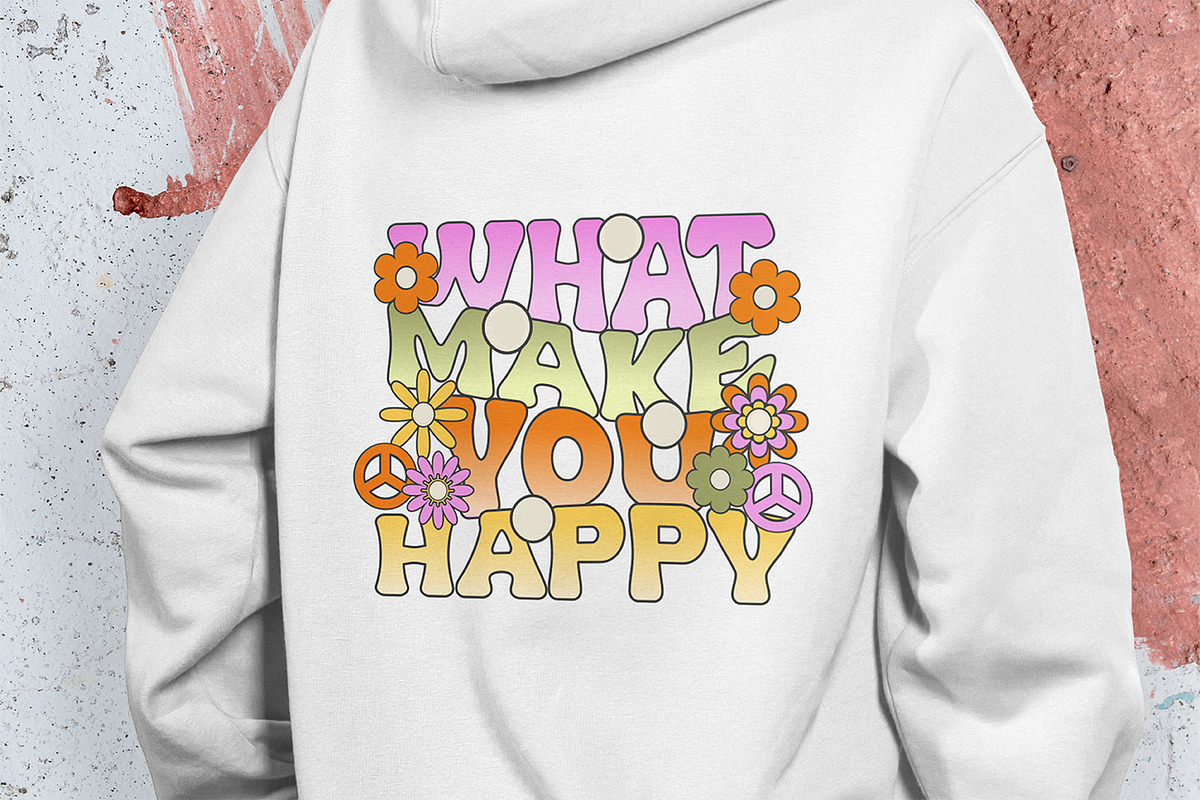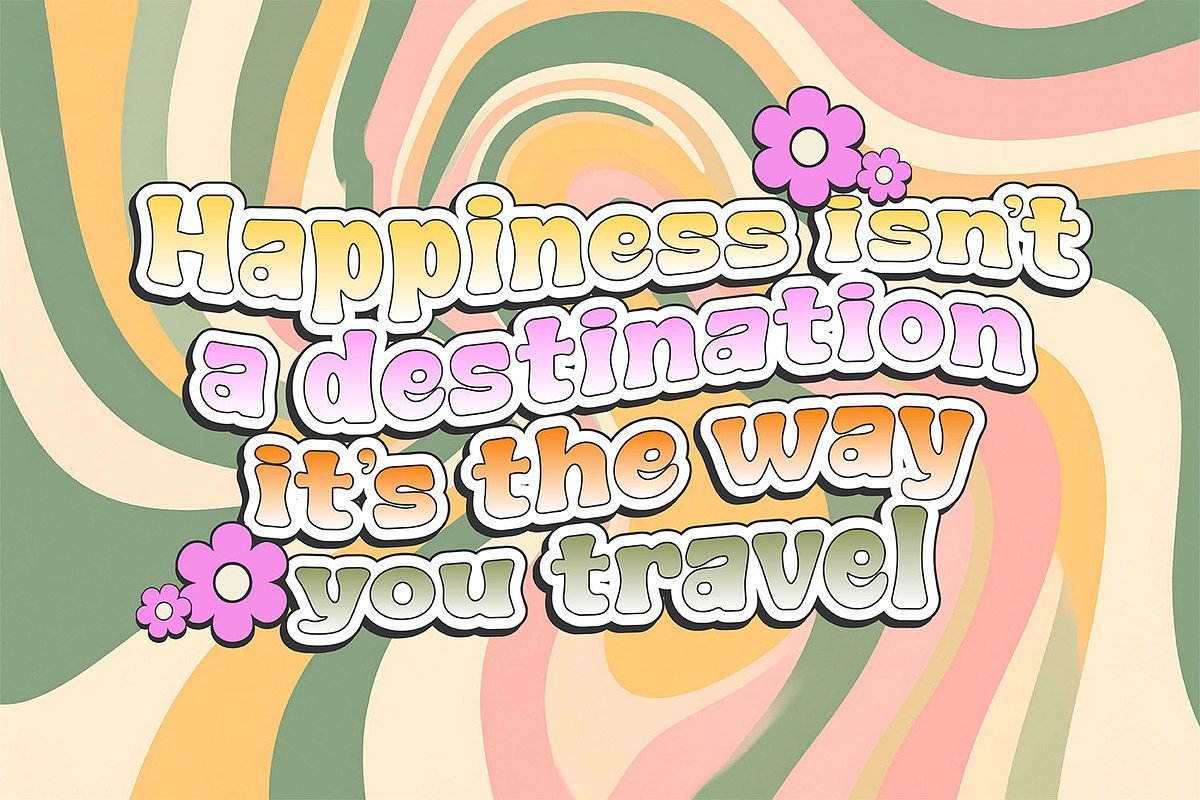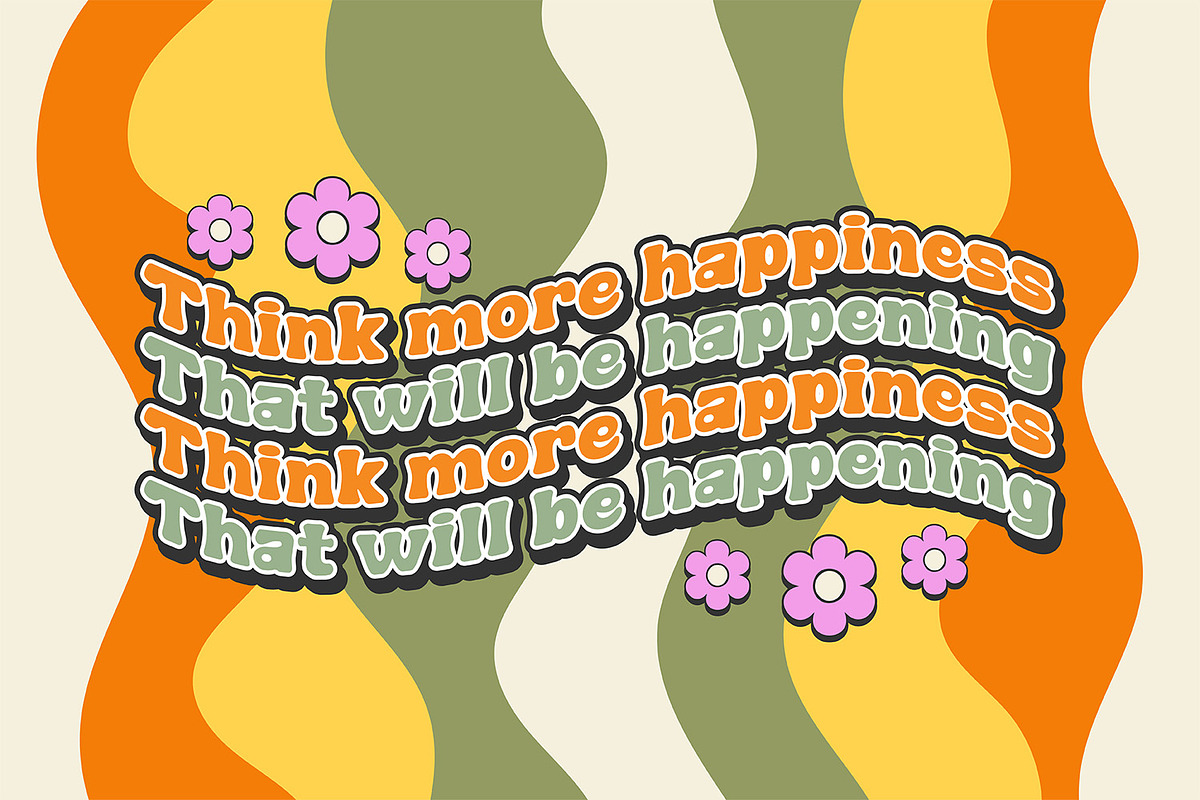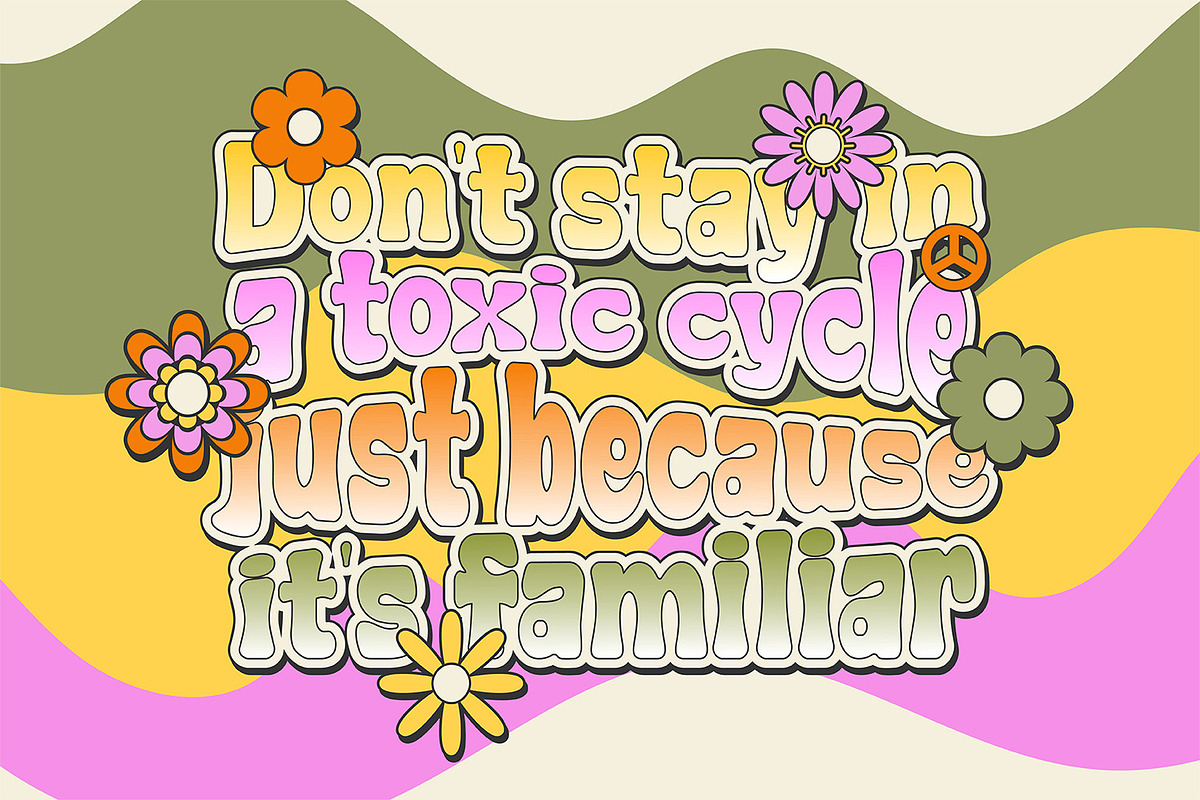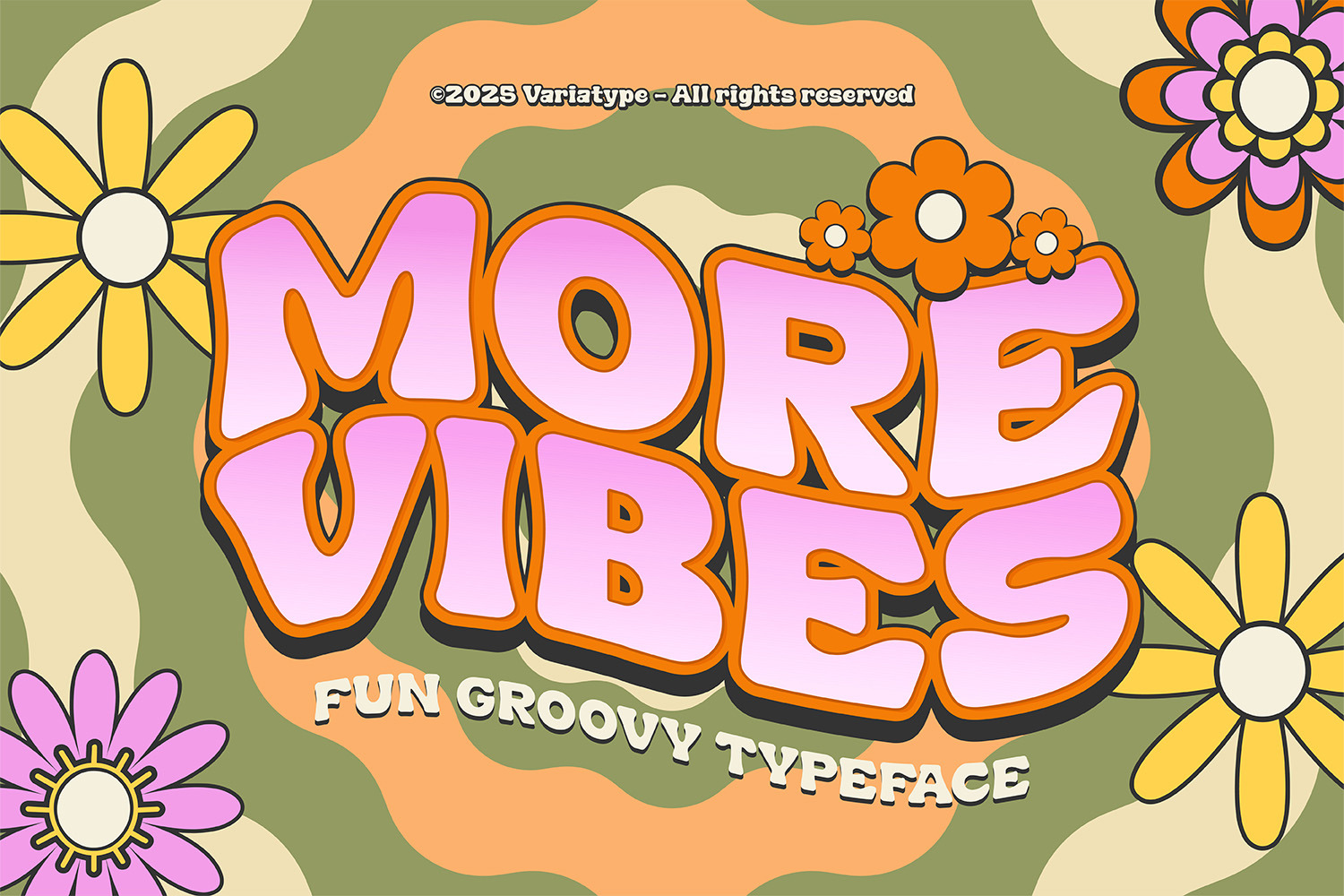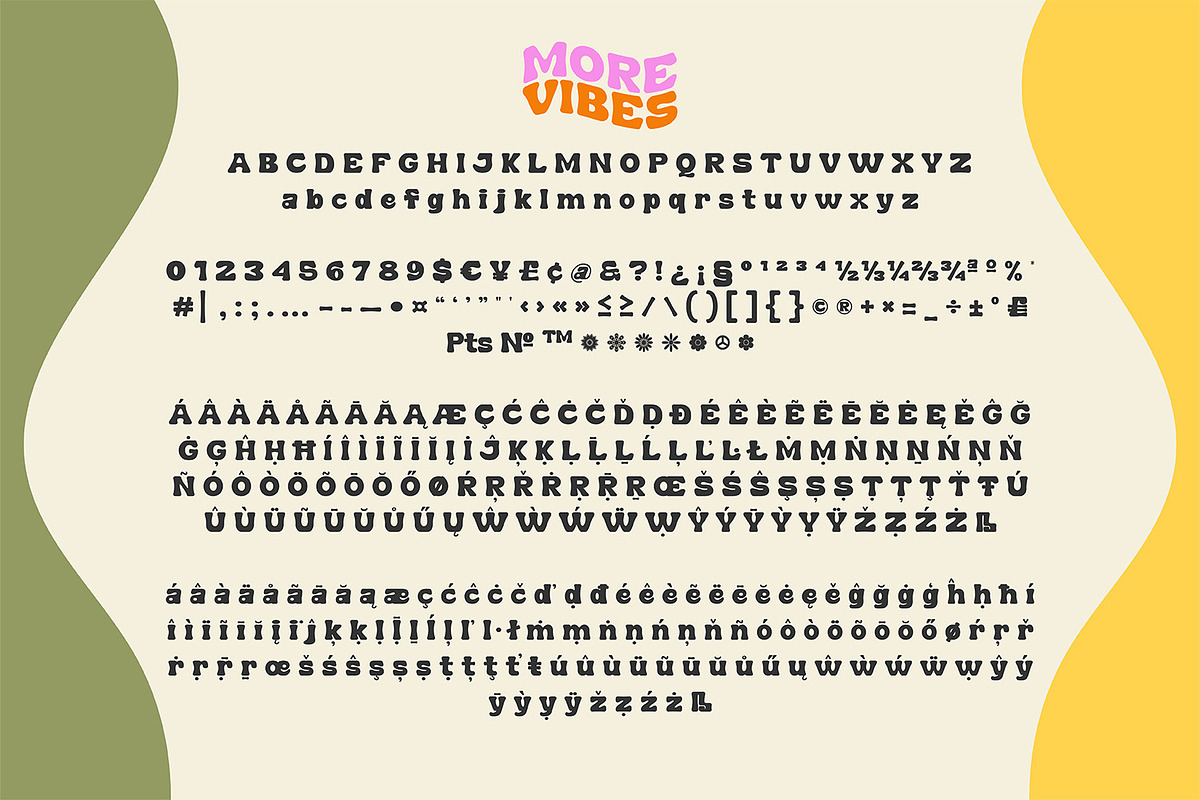
More Vibes – Fun & Groovy Font
More Vibes is a bold, playful, and groovy typeface that brings retro charm and feel-good energy to any design. With its chunky curves, vibrant personality, and nostalgic flair, it’s perfect for posters, branding, social media, or anything that needs a splash of happy 1970s soul. Let your creativity ride the wave of More Vibes!
Additional Accents
95 Languages